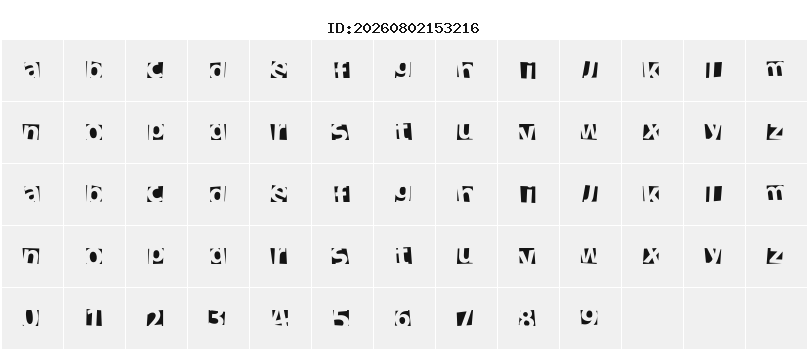
new facebook Preview
• Font Name: new facebook
• Designer: prask
About new facebook.ttf
new facebook.ttf is a modern, elegant sans-serif font designed for ultimate readability and visual harmony. Perfect for branding, headlines, web design, and print materials.